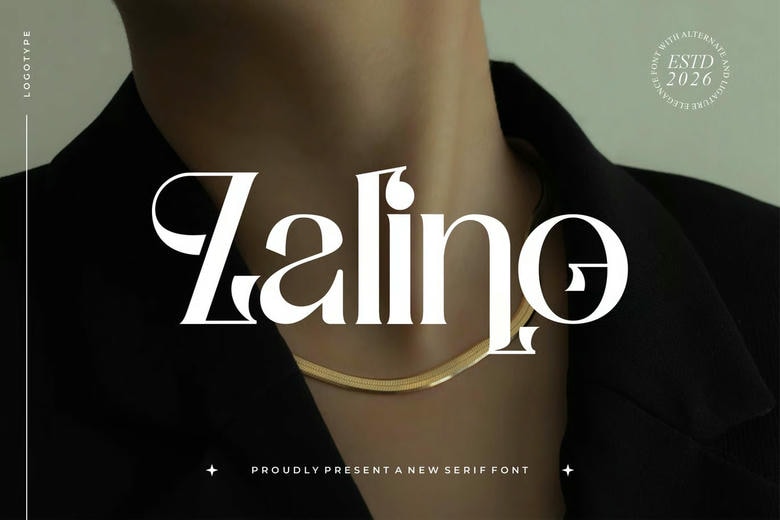
Zalino Font
Zalino is a stylish serif font that works well for branding and logo design. Its elegant look also suits invitation cards, movie titles, business cards, book covers, brand names, and other projects. Zalino Serif brings a smooth style and unique ligatures to your work.
Zalino Modern Classy Serif Font